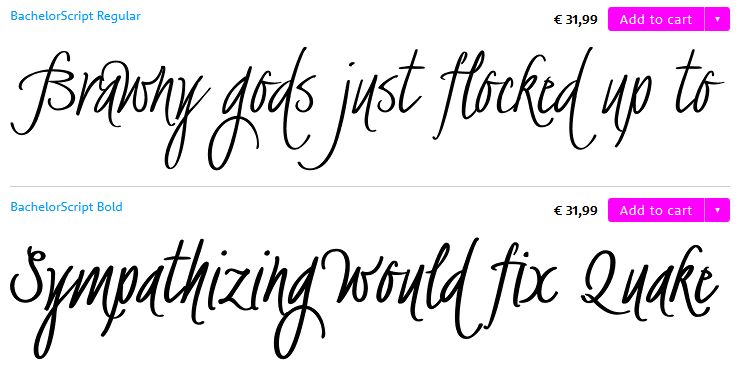
Font Frenzy: Bachelor’s Script
Handmade calligraphy fonts are all the rage at the moment, so take advantage of this deal at MyFonts, which is offering Bachelor Script – a family of two fonts, regular and bold – at a limited time discount of 60% off! The lines look great, free flowing yet sharp and crisp. Really terrific for formal occasions or used for emphasis and coupled with a professional sans serif font. Deal ends February 6. Examples below (don’t pay attention to the prices). Have fun!